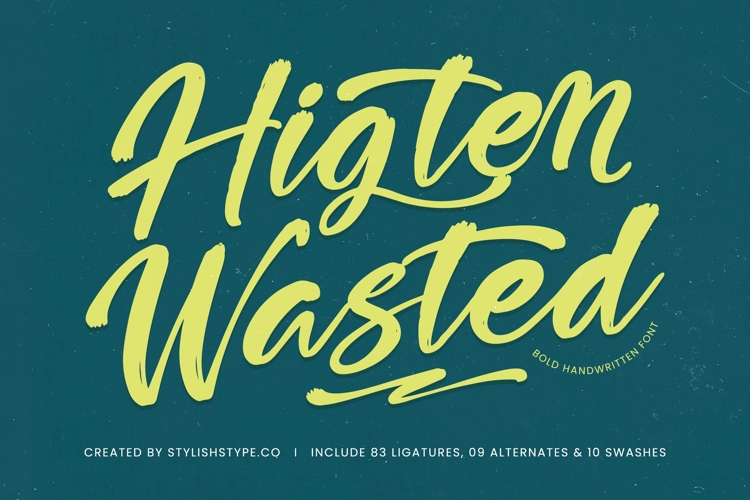
Higten Wasted - Bold Handwritten Font
Inject immediate energy into your design portfolio with the expressive authenticity of Higten Wasted - Bold Handwritten Font. This typeface delivers a powerful, custom-made aesthetic, characterized by its thick, flowing brushstrokes and dynamic baseline shifts. It perfectly captures the spontaneous feel of genuine hand-lettering, ensuring your titles and logos possess undeniable visual charisma and stand out instantly against crowded digital spaces.